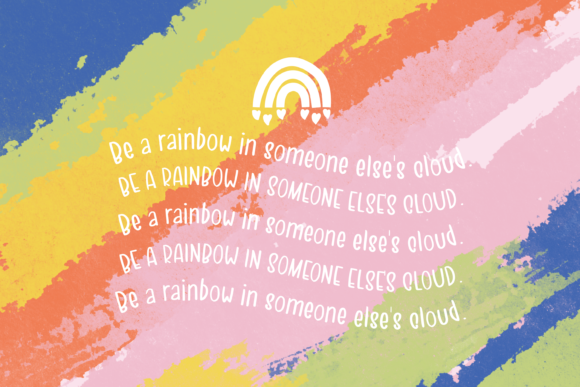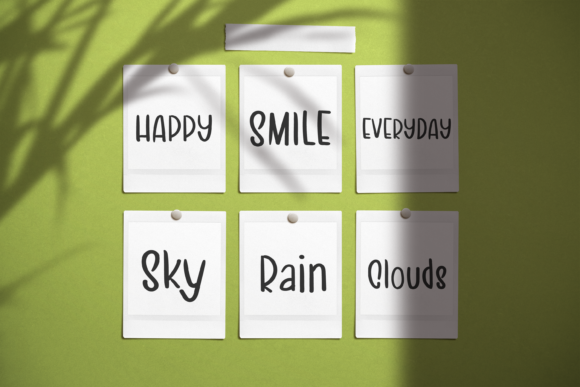
Rainbow Day Font
db-ku.com - Script & Handwritten -- Rainbow Day is a cute and charming handwritten font. Get inspired by its incredibly joyful feel and use it for any children activity or school project.